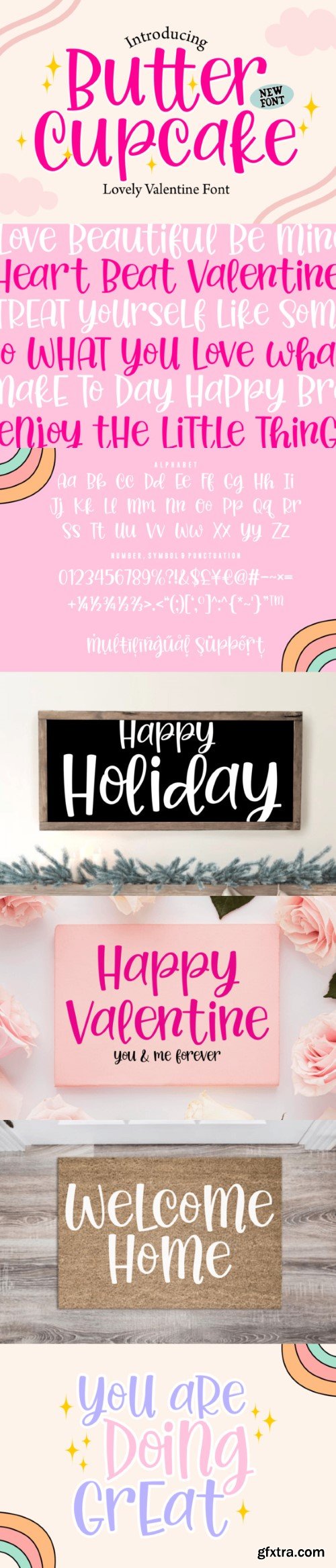
Butter Cupcake Font
Butter Cupcake is a delightful Valentine font that adds a sweet touch to your messages of love. With its charming and lovable design, this font is perfect for creating heartfelt Valentine’s Day cards, romantic notes, or any project that needs a dash of love. Butter Cupcake’s playful and warm style captures the essence of affection, making it a lovely choice for spreading love and joy in your designs.